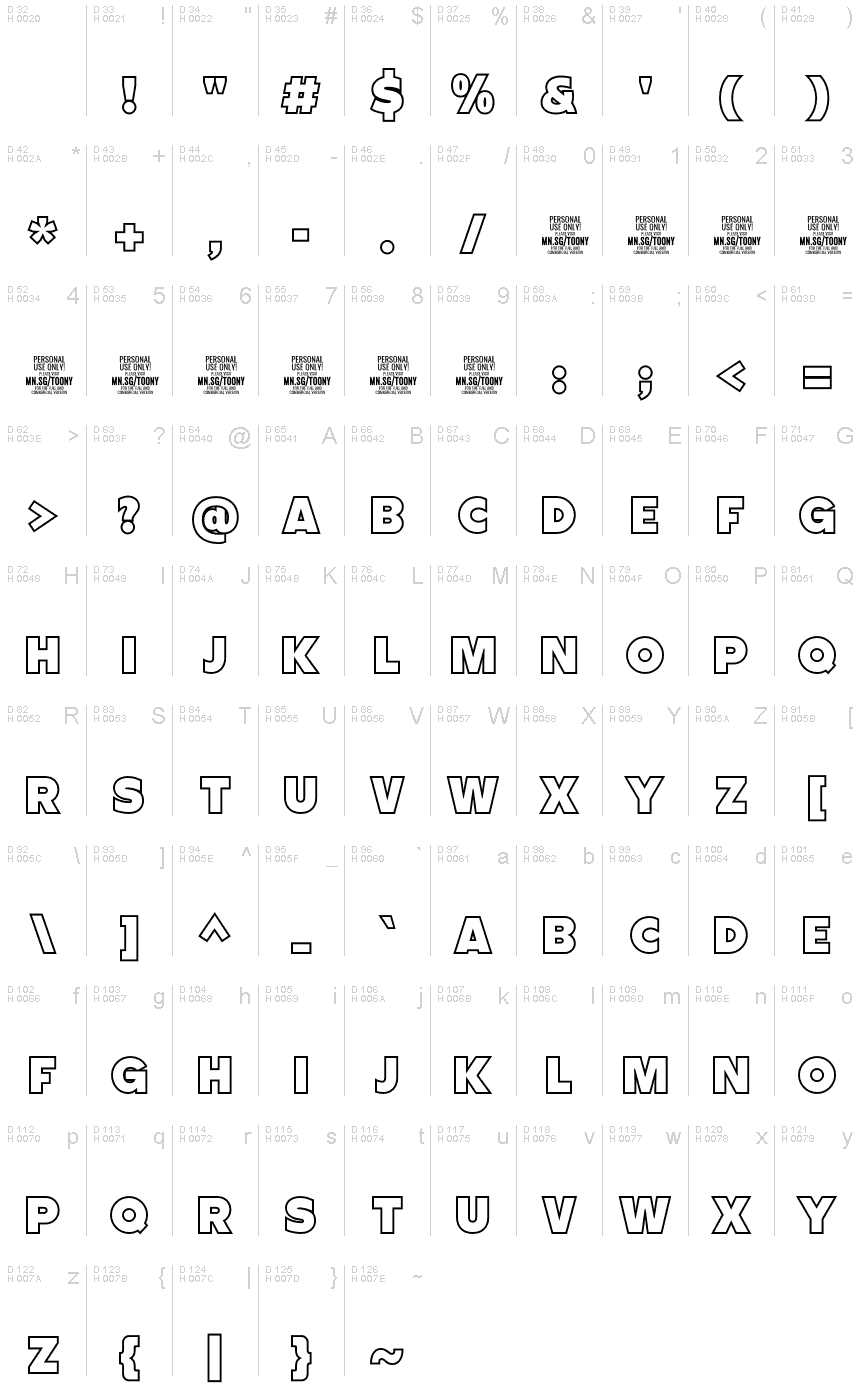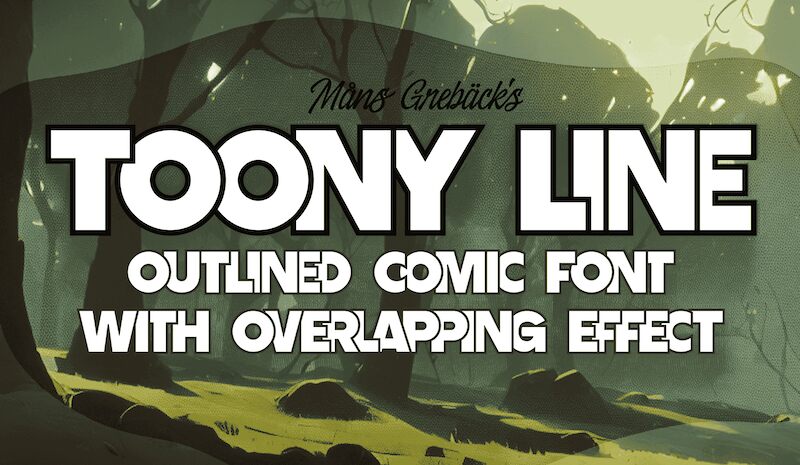
Toony Line, designed by Mans Greback, is a display font that brings the whimsical charm of the golden age of cartoons to life. Its extra-bold weight and semi-expanded width give it a strong presence on any project. This comic font is perfect for adding a touch of fun and playfulness to various creative endeavors.
From children's book illustrations to animated movie posters, Toony Line will transport viewers back to the carefree days of their favorite animated classics. With its sharp, sans-serif characters dancing across the page, this font captures the magic of Mickey Mouse while embodying the boldness found in comic strips and street art.
Let Toony Line inject joy and nostalgia into your designs with its loony and lively style.
Make sure to activate contextual alternates in your software (Photoshop, Illustrator etc.) and you'll get the overlapping effect.